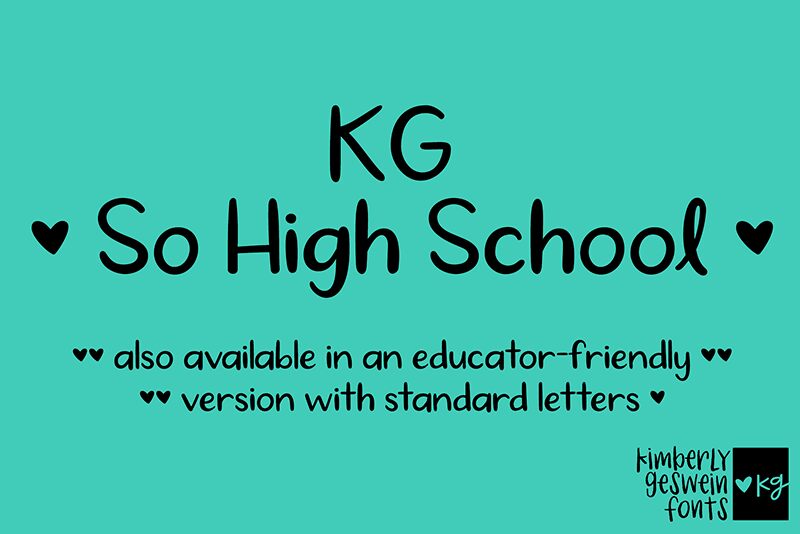
KG So High School Normal
Designed by Kimberly Geswein, KG So High School font is a handwritten typeface that captures a playful and informal aesthetic. Its rounded edges and moderate contrast create a casual mood, while smooth curves and a slight slant give it a relaxed feel. With its unique personality, the font adds charm to any project.
The versatile nature of KG So High School makes it ideal for school projects, personal notes, scrapbooking pages, and social media graphics. It's also great for party invitations or any DIY project that requires an approachable vibe.